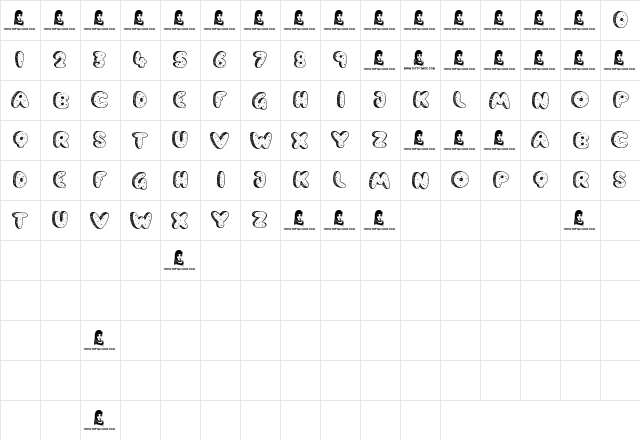
Cookie Dough Regular
| Foundry | Jonathan S. Harris |
| Designer | Jonathan S. Harris |
Design Context for Cookie Dough Typeface
Cookie Dough is a composed and adaptable typeface that performs quietly and consistently across a wide range of design contexts.